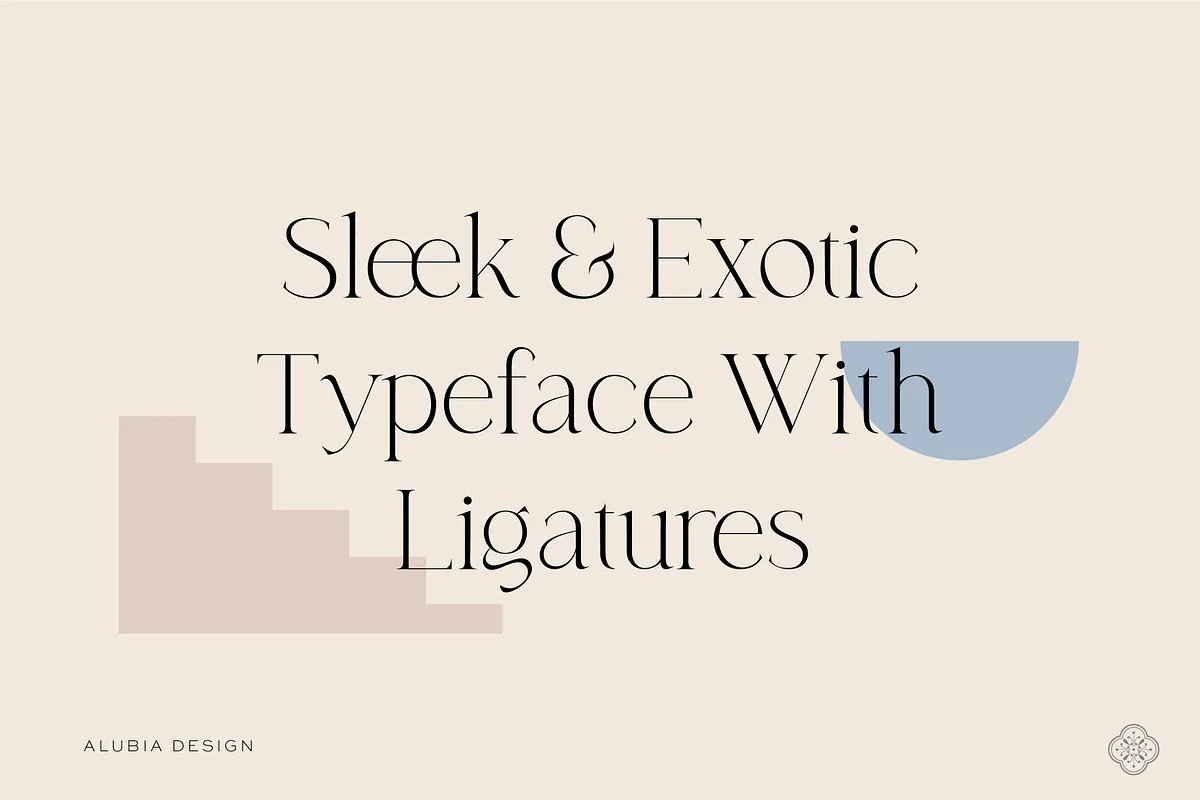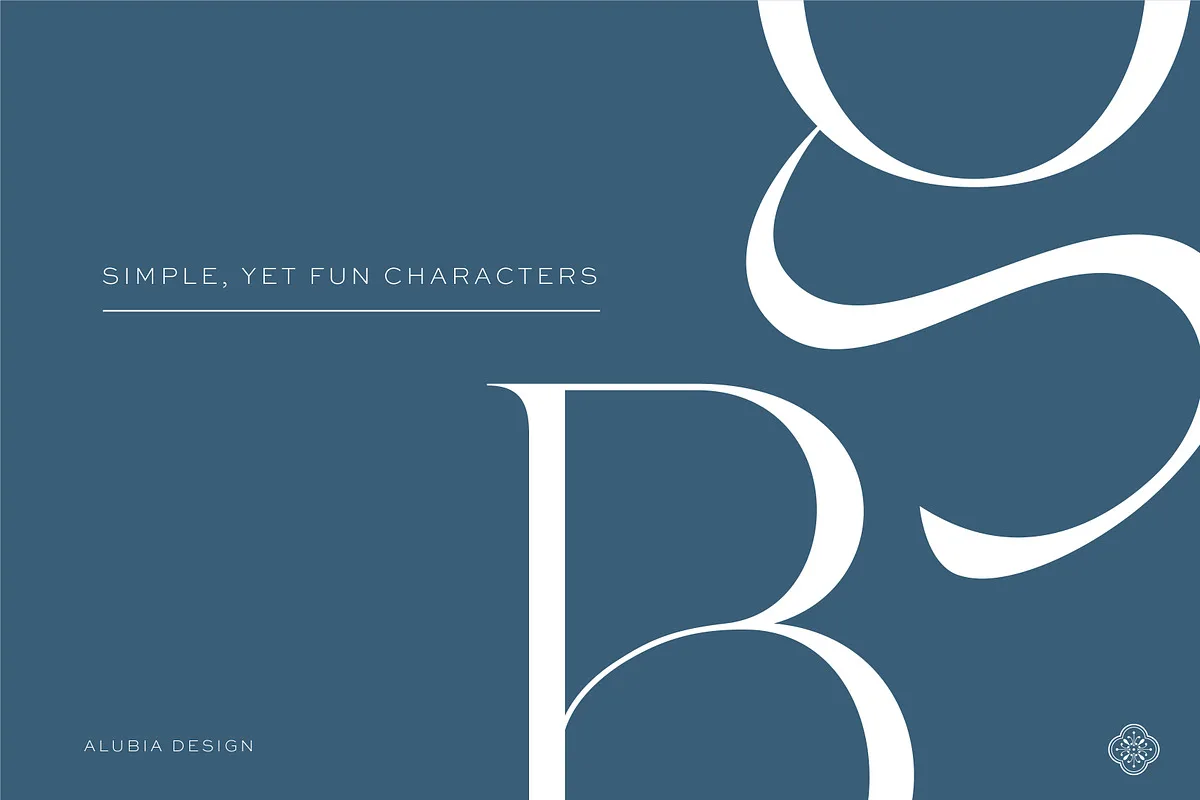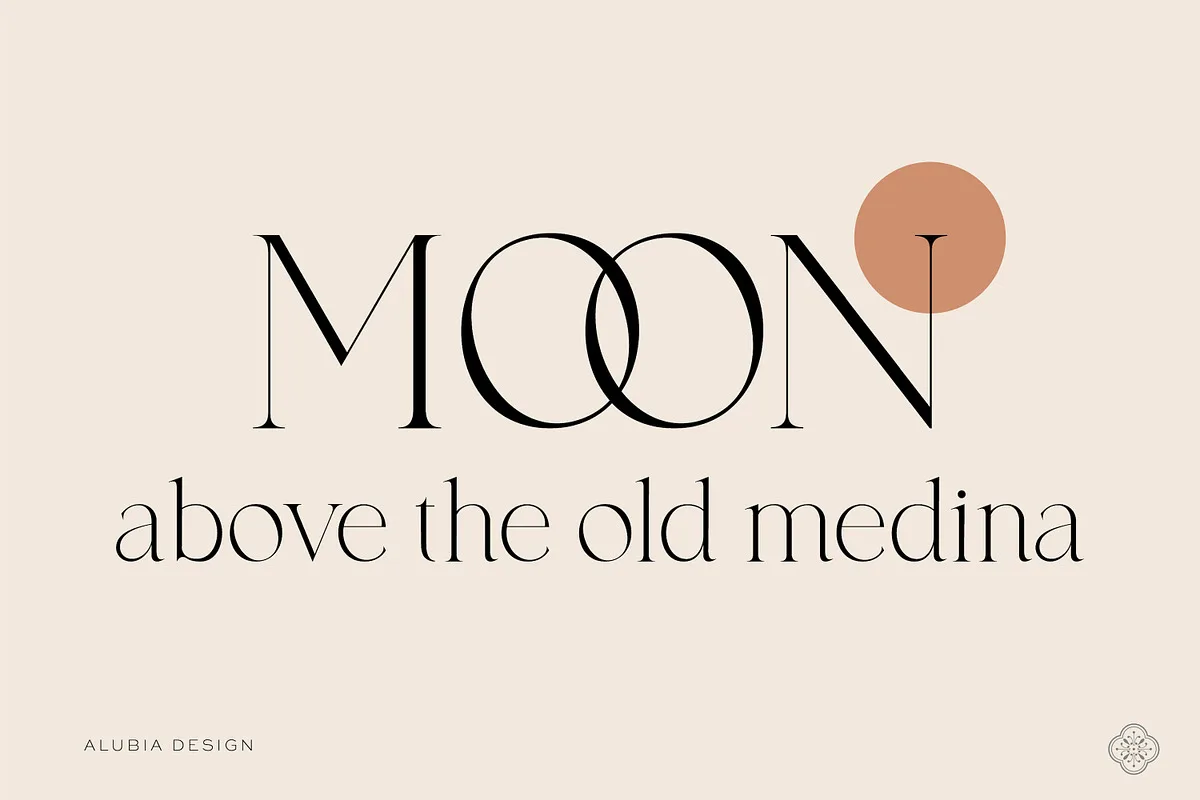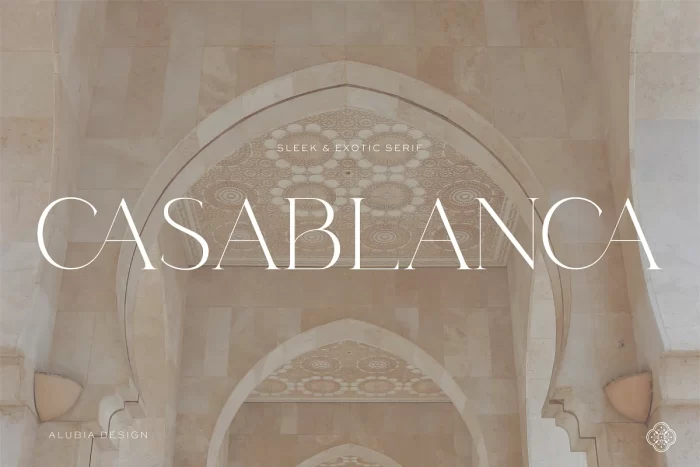
Casablanca is a stunning serif typeface that combines the sleek and exotic characteristics of a serif font with beautifully crafted ligatures, making it an ideal choice for creating elegant and sophisticated designs.
- Uppercase & ligature
- Lowercase letters & ligature
- Multilingual characters
- Numbers
- Punctuation